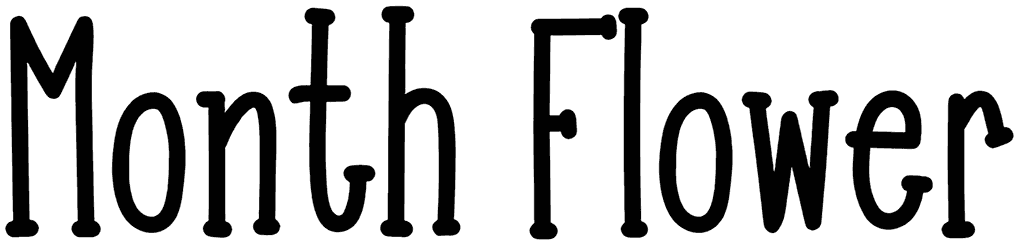
Month Flower Font
The simple characters of Month Flower would be very well used in a wide range of graphic content including headlines, magazines, applications, or social media posts. This handwritten font can level up the quality of your…
The simple characters of Month Flower would be very well used in a wide range of graphic content including headlines, magazines, applications, or social media posts.
This handwritten font can level up the quality of your editorial projects by reinforcing a vibe of minimalistic, momentum, or fierce. Don’t forget to visit our archive and enjoy the vast collection of various serif fonts that are provided for you.